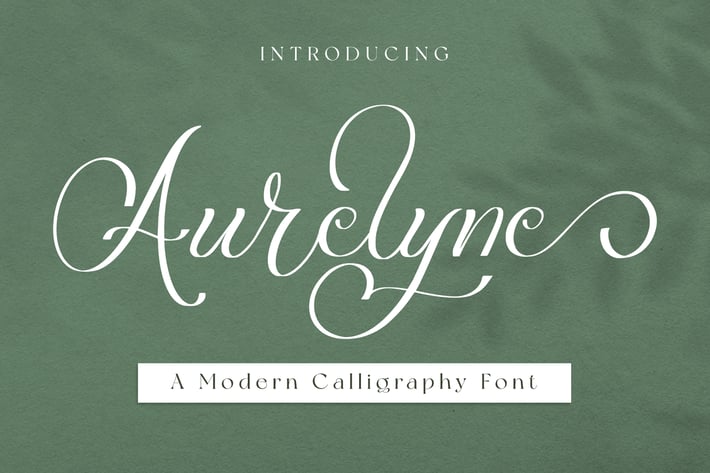
Aurelyna - Calligraphy Font
NissaStudio
Aurelyna is an elegant handwritten font that feels equally charming and elegant. It looks stunning on wedding invitations, thank you cards, quotes, greeting cards, logos, business cards, and every other design which needs a customized touch.
Each Font Has:
Modern Handwritten Font
Beautiful Swash (Ending tail)
Beautiful Titling (Beginning tail)
Special Ligatures